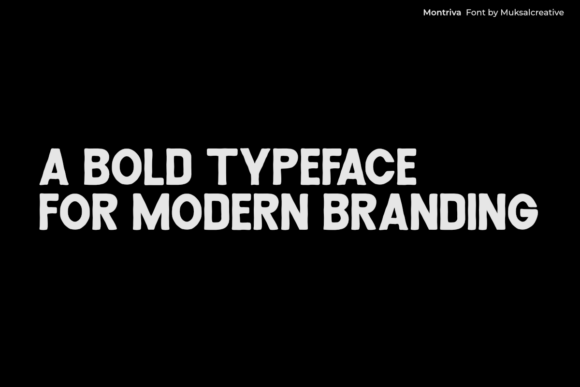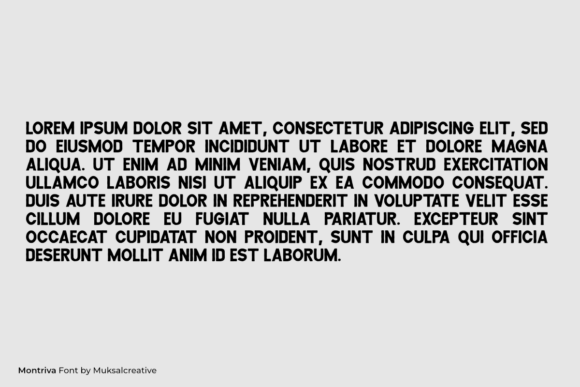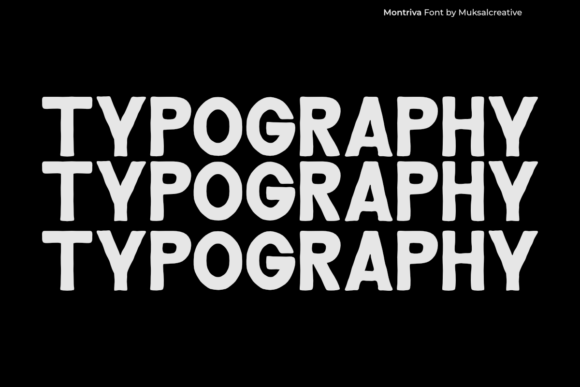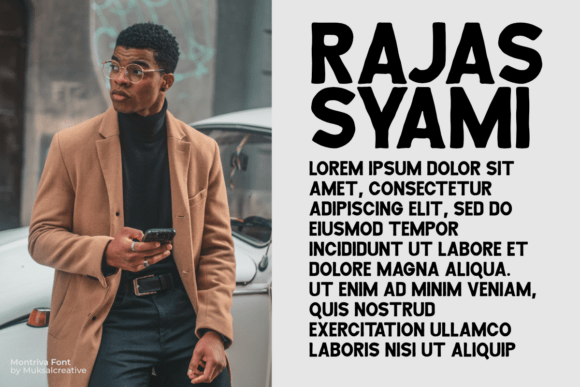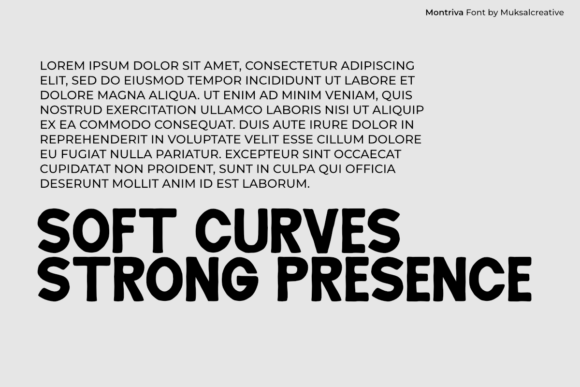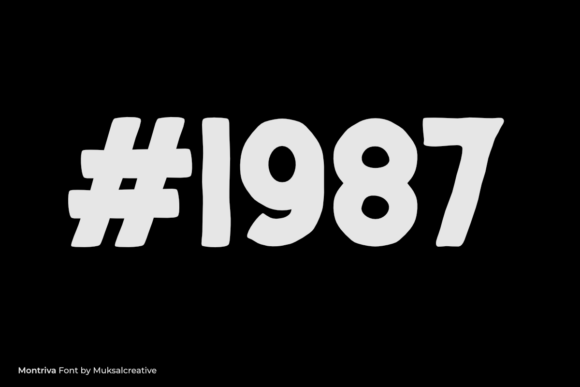
Introduction to Montriva Font
Have you ever been stuck on a creative project, staring at a blank canvas, and desperately searching for the perfect font to bring your vision to life? That’s where the Montriva Font comes in – a game-changing design resource that’s about to revolutionize the way you communicate your message.
As a designer, you know how crucial it is to have high-quality fonts that exude confidence and authority. That’s exactly what Montriva Font delivers, with its bold sans-serif display typeface that’s designed to make a statement. With its thick, sturdy letterforms and humanist-geometric soul, this font is perfect for tech startup identities, editorial headlines, and professional branding that demands attention.
Whether you’re working on a free download project or need a font that shines on a transparent background, Montriva Font is the perfect choice. Its excellent legibility and substantial weight make it a versatile design tool that’s sure to elevate your creative projects to the next level.
Key Features of Montriva Font
- High-quality design for creative projects and designs, ideal as a design resource.
- Includes a transparent background, making it easy to use in various design scenarios.
- Each font is carefully crafted with attention to detail, resulting in a unique and professional look.
- Designed to be scalable, with a high resolution of 300 DPI, making it perfect for print and digital applications.
- Montriva Font is a versatile design resource that can be used for a wide range of creative projects, from logos to brochures.
Honest Review: Montriva Font
I recently stumbled upon the Montriva Font, and I must say, it’s been a great addition to my design resources. As a designer, I’m always on the lookout for high-quality fonts that can elevate my creative projects. The Montriva Font does just that.
- What works well: The Montriva Font is incredibly versatile and can be used for a wide range of design projects, from logos to typography-based designs. Its clean and modern design makes it perfect for creating a sleek and professional look.
- ✨ The font is also highly customizable, allowing me to adjust the size, color, and style to suit my design needs.
⚠️ One limitation I’ve noticed is that the Montriva Font may not be suitable for designs that require a bold or playful tone. The font’s clean design can sometimes come across as too minimalist or sterile.
Overall, I’m impressed with the Montriva Font and would highly recommend it to designers looking for a high-quality, versatile font for their creative projects.
Getting the Most Out of Montriva Font
To get the most out of Montriva Font, use it in conjunction with other high-quality design resources, such as images and graphics. This will help create a cohesive and visually appealing design. Additionally, consider using the font in a creative project, such as a logo or branding materials.
Montriva Font is a versatile design resource that can be used in a variety of creative projects, including:
- Website design and content creation
Alternatives to Montriva Font